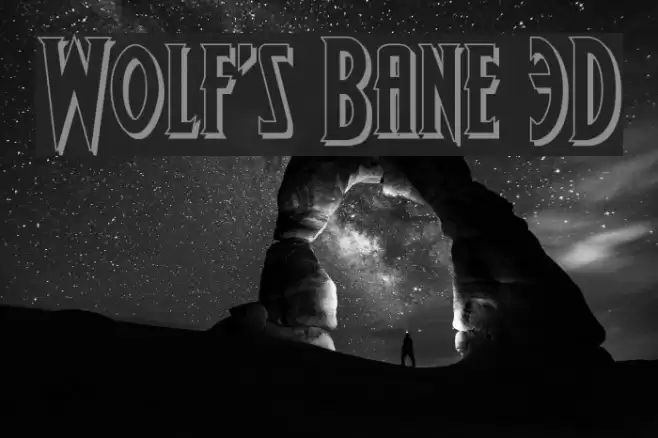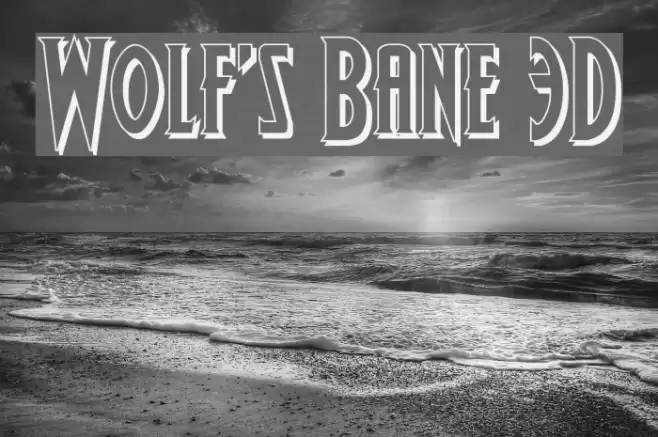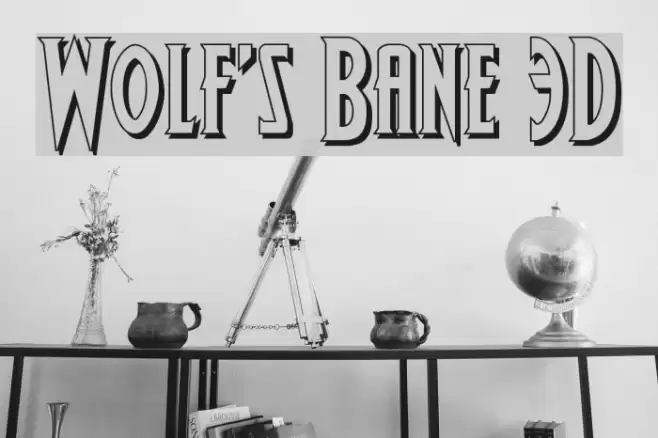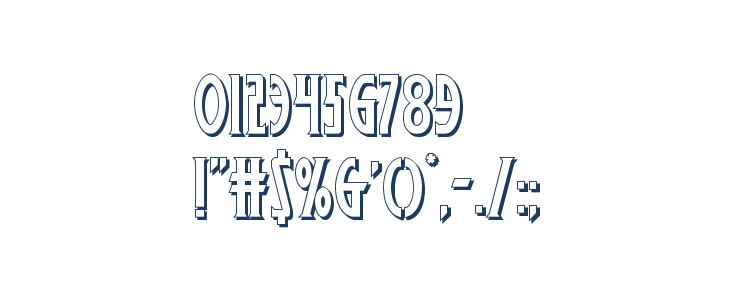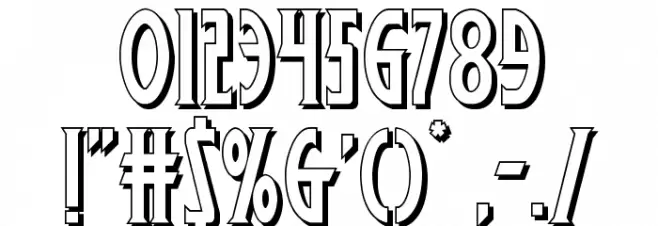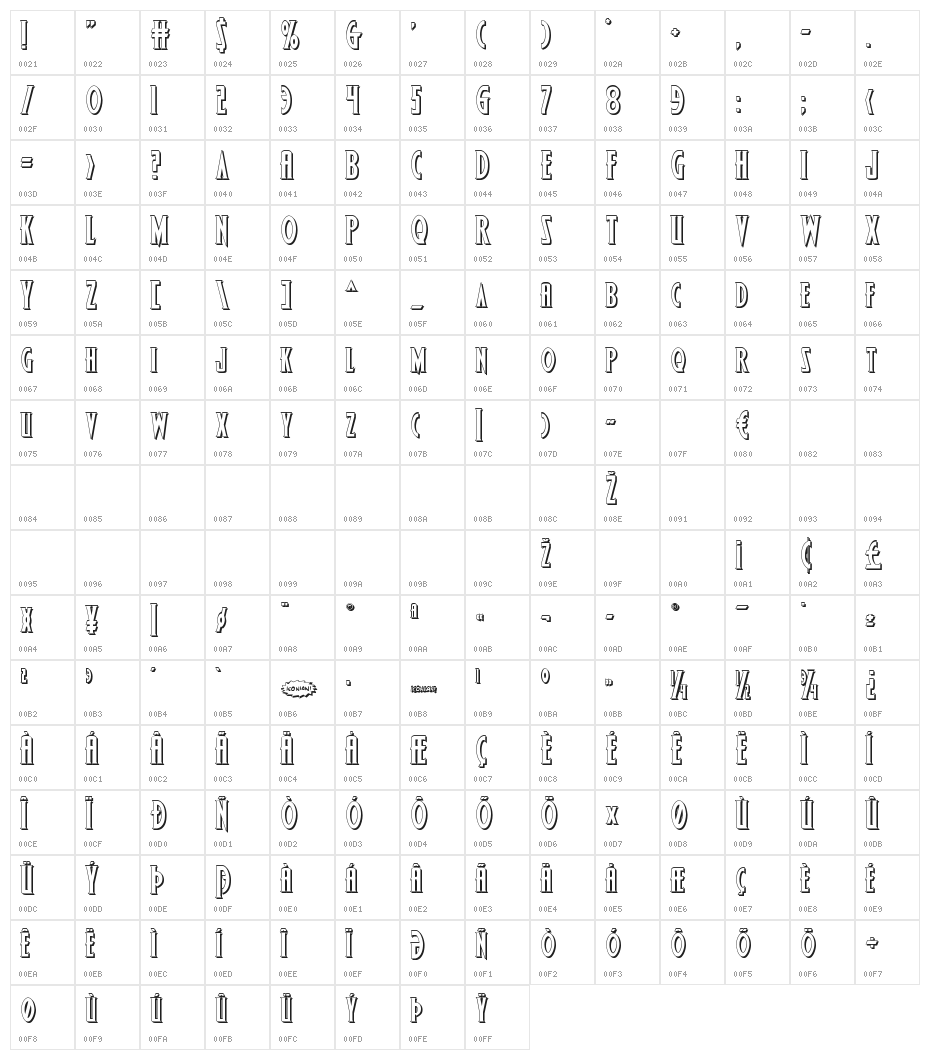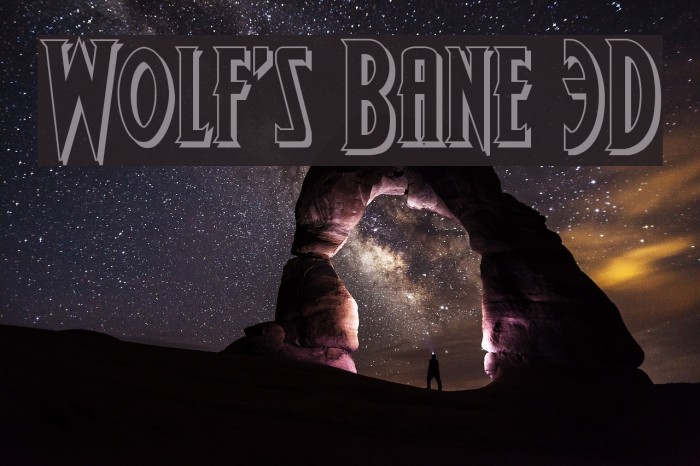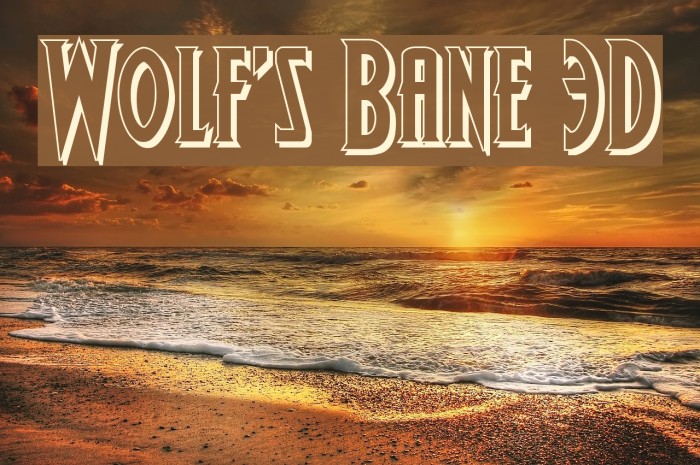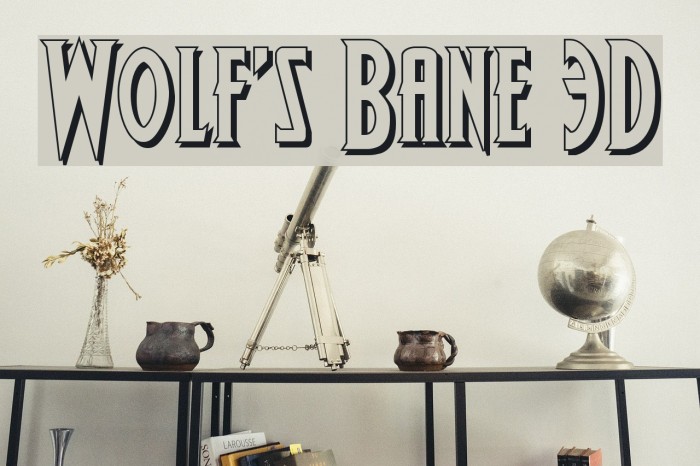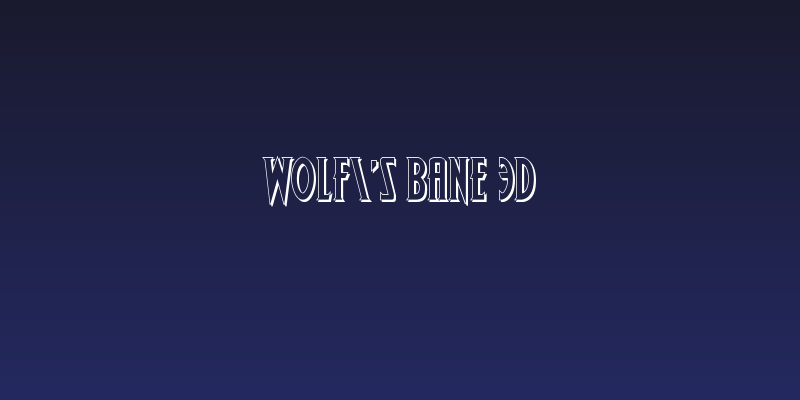
Wolf's Bane 3D Font
Wolf's Bane 3D Description
This font features a bold, three-dimensional style with a strong, impactful presence. The characters are designed with a shadow effect that gives them a raised appearance, adding depth and dimension. The letterforms are sharp and angular, with a slight slant that enhances their dynamic look. The font combines elements of both modern and vintage styles, making it versatile for various design needs. Its distinct and eye-catching appearance makes it suitable for projects that require a bold statement.
A bold, 3D font with sharp, angular letterforms and a shadow effect from Uncategorized fonts.
- Proposed Projects: Ideal for posters, logos, video game titles, and any design requiring a striking, bold typeface.
- Overall Style: Modern, Vintage